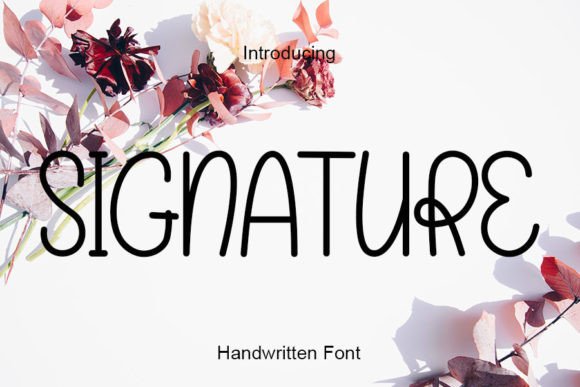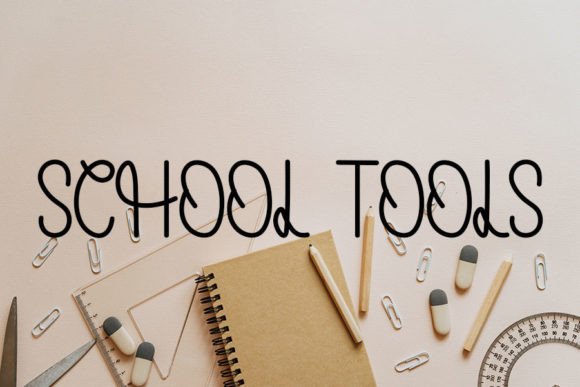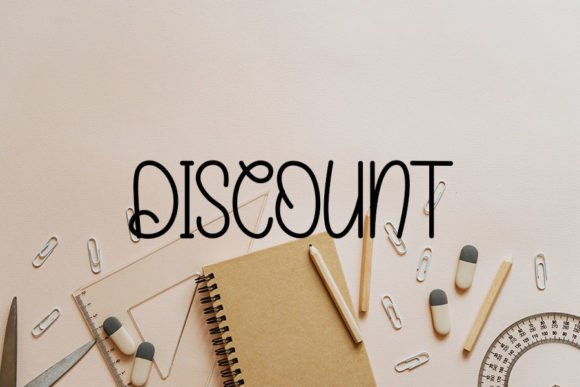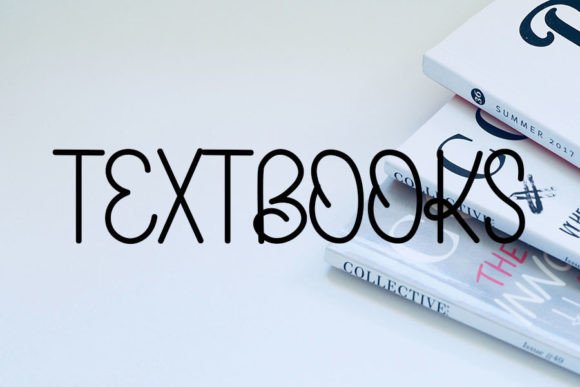
The Signature Font Download is a neat and beautiful handwritten script crafted with an elegant touch. Its smooth curves and timeless letterforms give it a refined personality, making it ideal for both professional and creative projects. Inspired by the natural flow of handwriting, this font adds charm and sophistication to any design.
When you want to create an impression that feels authentic and stylish, the Signature Font Download offers the perfect balance of beauty and readability.
Features of Signature Font
The Signature Font Download comes with powerful features that make it stand out among handwritten typefaces:
Elegant and neat handwritten script
Smooth flowing strokes for a professional finish
Complete character set including uppercase, lowercase, numbers, and punctuation
PUA-encoded for easy access to alternate glyphs and ligatures
Multilingual support for international use
These features allow designers to create polished and versatile works across both digital and print media.
Best Uses for Signature Font
The Signature Font Download is highly adaptable and fits perfectly in a wide range of creative applications, such as:
Logos & Branding – Add elegance and personality to your brand identity
Wedding Invitations – Perfect for formal events that require a refined style
Greeting Cards – Bring warmth and sophistication to personal messages
Social Media Graphics – Create posts that stand out with style
Quotes & Posters – Present words beautifully and memorably
Product Packaging – Elevate labels, tags, and product branding with handwritten charm
Because of its versatility, the font enhances both personal projects and professional designs.
Why Choose Signature Font?
Designers love the Signature Font Download because it combines beauty with practicality. Unlike overly decorative typefaces, Signature remains elegant yet readable in both small and large formats. Its flowing handwritten style brings a timeless appeal, while its contemporary design ensures it looks fresh and modern.
This makes it not only a stylish choice but also a dependable font for various creative needs.
The Signature Font Download is more than just a handwritten script—it is a timeless design tool. With its elegant curves, balanced flow, and professional versatility, it brings sophistication to every project. Whether you are creating branding, invitations, or digital designs, this font will ensure your work looks both stylish and memorable.